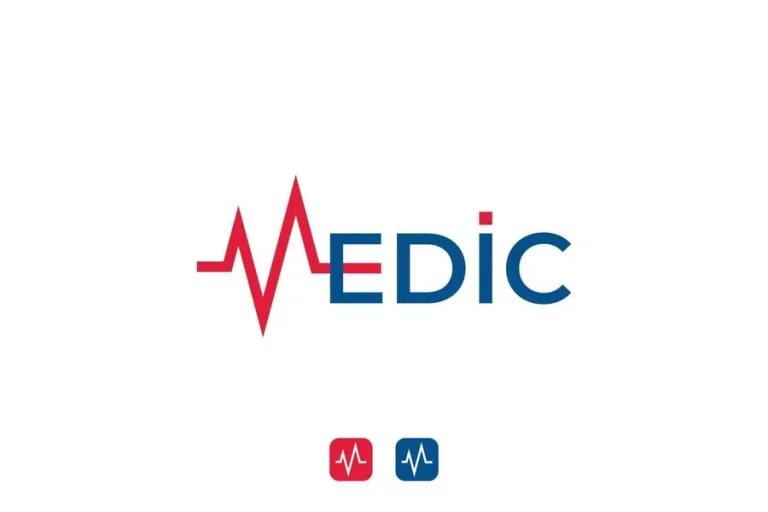
Medical Font Style for Clear Professional Health Design
The medical font plays a vital role in how health information is understood. In hospitals clinics and medical websites every word matters. People look for clarity comfort and confidence. The font used in medical design helps deliver that message.
Design in healthcare is not about decoration. It is about helping people feel safe informed and supported. Medical font is at the heart of that mission.
The Origins and Design Principles of Medical Font
The development of medical font follows a simple goal. Make information clear and accessible. Early medical texts used strong serif fonts that were easy to print and read. As technology evolved new styles emerged.
Modern medical fonts often use sans serif designs. These fonts have smooth lines and open shapes. They perform well on screens and in print. They reduce eye strain and increase reading speed.
Spacing also plays an important role. Letters in a medical font are not crowded. They leave room for the eyes to move comfortably across the page. The shapes are stable and balanced. Nothing feels rushed or aggressive. Everything feels controlled and reliable. These design choices are intentional. They help patients and professionals focus on the message without distraction.
Why Designers Choose Medical Font
Designers choose medical font because it builds trust. When people see clean organized text they feel confident in the information. Medical brands hospitals clinics and pharmaceutical companies rely on this style to communicate professionalism. The font becomes part of the identity.
Another reason for its popularity is accessibility. Medical font supports different age groups and reading abilities. Elderly patients children and non native readers can all understand the content more easily.
Medical font also performs well in both digital and printed materials. From hospital signs to mobile apps the font stays consistent and readable. Designers know that good healthcare communication starts with typography. That is why medical font remains a top priority.
How Medical Font Is Used in Healthcare Design
Medical font appears everywhere in healthcare. Hospitals use it on signs patient forms reports and informational posters. It helps guide patients through complex spaces and procedures.
Pharmacies use medical font on medicine packaging labels and instructions. The font must be clear to avoid mistakes. Medical websites and health apps rely on this font style to deliver critical information. It helps users navigate content easily and safely.
Doctors clinics and laboratories use medical font in branding logos business cards and official documents. It reflects reliability and expertise.
Even educational materials such as textbooks training guides and public health campaigns depend on medical font for clarity. The role of this font in healthcare is essential and constant.
The Future of Medical Font in Digital Health
The future of medical font will grow with digital health technology. As more healthcare services move online the demand for clear readable fonts increases. Designers are developing responsive medical fonts that adapt to different screen sizes and devices. This ensures consistent reading across phones tablets and monitors. New technologies allow fonts to improve accessibility for people with vision challenges. Variable weights and spacing options will continue to evolve.
As healthcare becomes more global medical font must support many languages and writing systems. This will expand its design possibilities. No matter how technology changes the goal remains the same. Clear communication. Safe information. Trusted design.
Final Thoughts on Medical Font
Medical font is more than letters on a page. It is a tool of care. It helps people understand. It builds confidence. It supports life saving decisions. Every healthcare message becomes stronger when the right medical font is used. It transforms complex information into something calm and accessible.